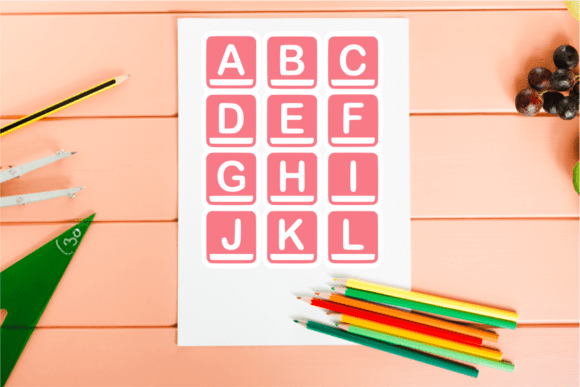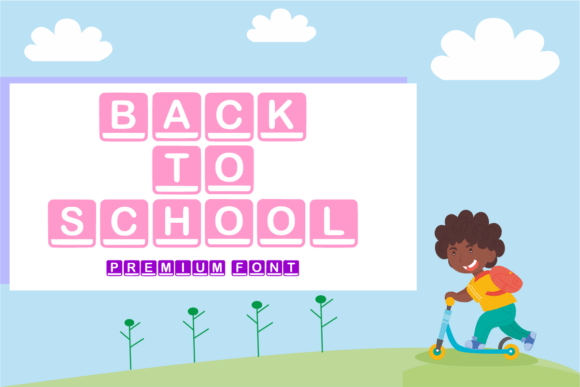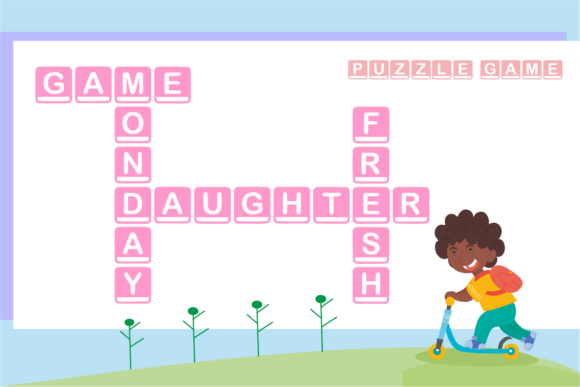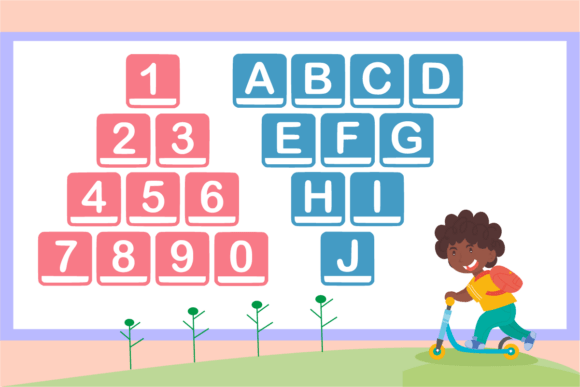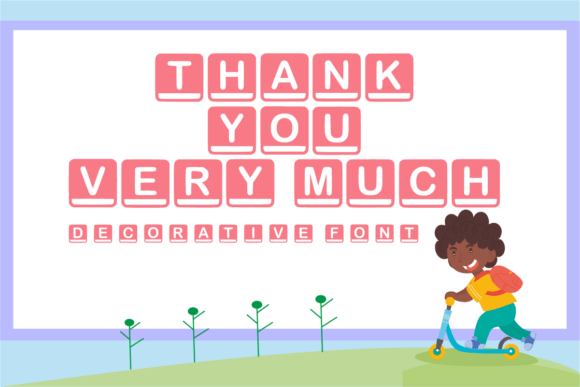
Introducing Button Style Font: The Ultimate Decorative Font for Creative Designs
Are you tired of using the same old fonts for your designs? Look no further! We’re excited to introduce “Button Style,” a modern, decorative font that’s sure to take your creations to the next level. This unique font features a square, button-like shape, consisting of only uppercase letters, making it perfect for a wide range of applications.
What Makes Button Style Font So Special?
Each character in the Button Style font is carefully crafted to be cute, unique, and cool, making it easy to recognize and visually appealing. The font’s design is inspired by buttons, with a square shape that’s both modern and playful. The uppercase letters are bold and eye-catching, making it perfect for headlines, titles, and other design elements that need to stand out.
Endless Design Possibilities with Button Style Font
The versatility of Button Style font is one of its most significant advantages. It’s perfect for a wide range of creative projects, including:
- Children’s craft designs: Create fun and engaging craft projects for kids, such as coloring books, activity sheets, and more.
- Sublimated t-shirts: Add a playful touch to your custom t-shirts with Button Style font.
- Mugs: Design eye-catching mugs with fun phrases, quotes, or names.
- Tote bags: Create reusable tote bags with cute and colorful designs.
- Animations: Use Button Style font to add a playful touch to your animations, cartoons, or video productions.
- Comic titles: Create bold and eye-catching titles for your comics, graphic novels, or manga.
- Children’s coloring books: Design engaging and interactive coloring books for kids.
- Children’s needs: Perfect for creating materials for children’s events, parties, or activities.
Why Designers and Crafters Love Button Style Font
Button Style font is a game-changer for designers and crafters who want to add a touch of personality to their work. Here are just a few reasons why:
- Easy to read: Despite its decorative nature, Button Style font is surprisingly easy to read, making it perfect for designs that require a clear message.
- Highly versatile: Use Button Style font for a wide range of projects, from digital designs to print materials.
- Unique and eye-catching: The font’s button-like shape and bold design make it stand out from more traditional fonts.
- Fun and playful: Button Style font adds a touch of whimsy and fun to any design, making it perfect for projects aimed at kids or a younger audience.
Get Creative with Button Style Font
With Button Style font, the possibilities are endless! Let your imagination run wild and create unique, engaging designs that showcase your creativity. Whether you’re a professional designer or a crafter looking for a fun and easy way to add some personality to your work, Button Style font is the perfect choice.